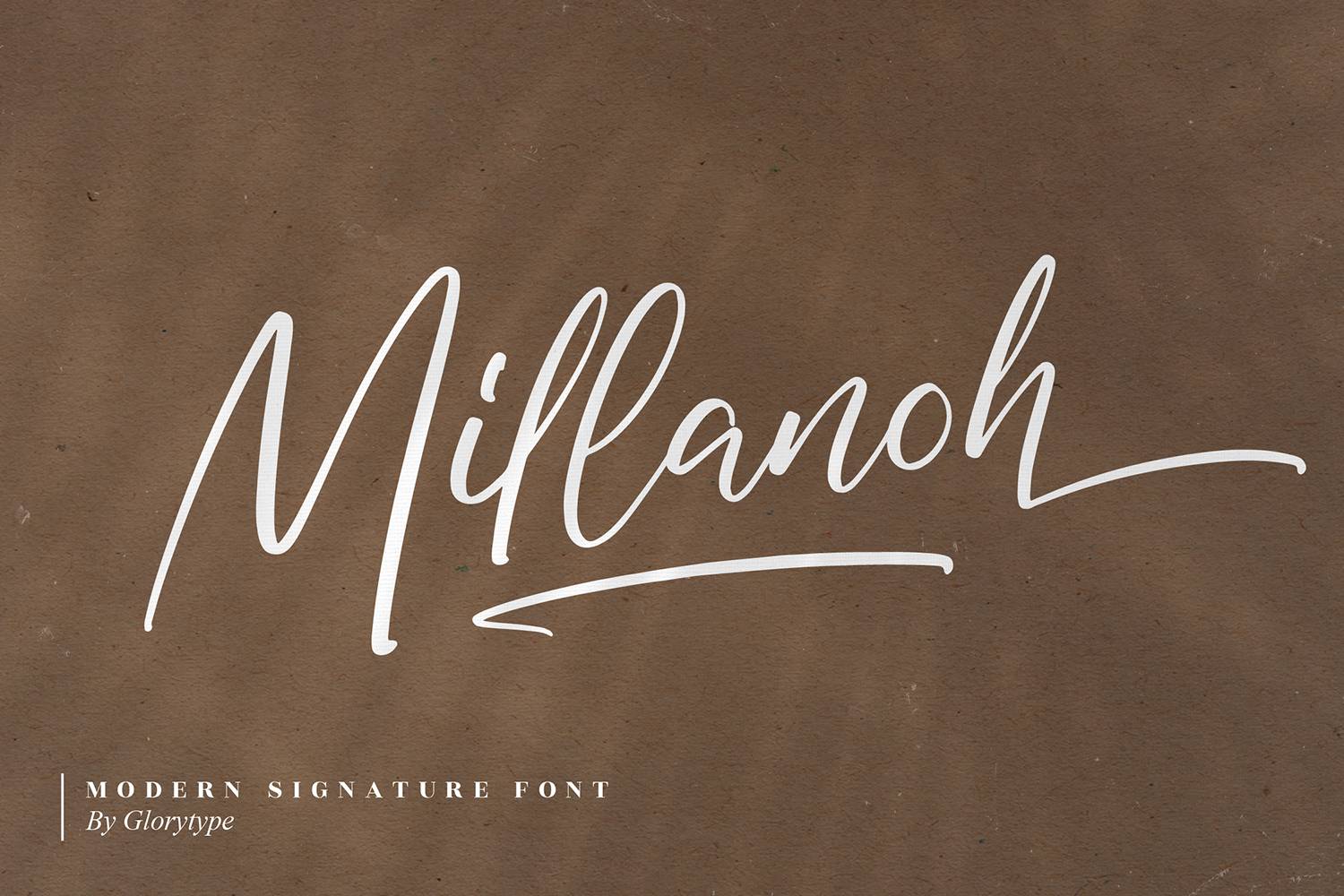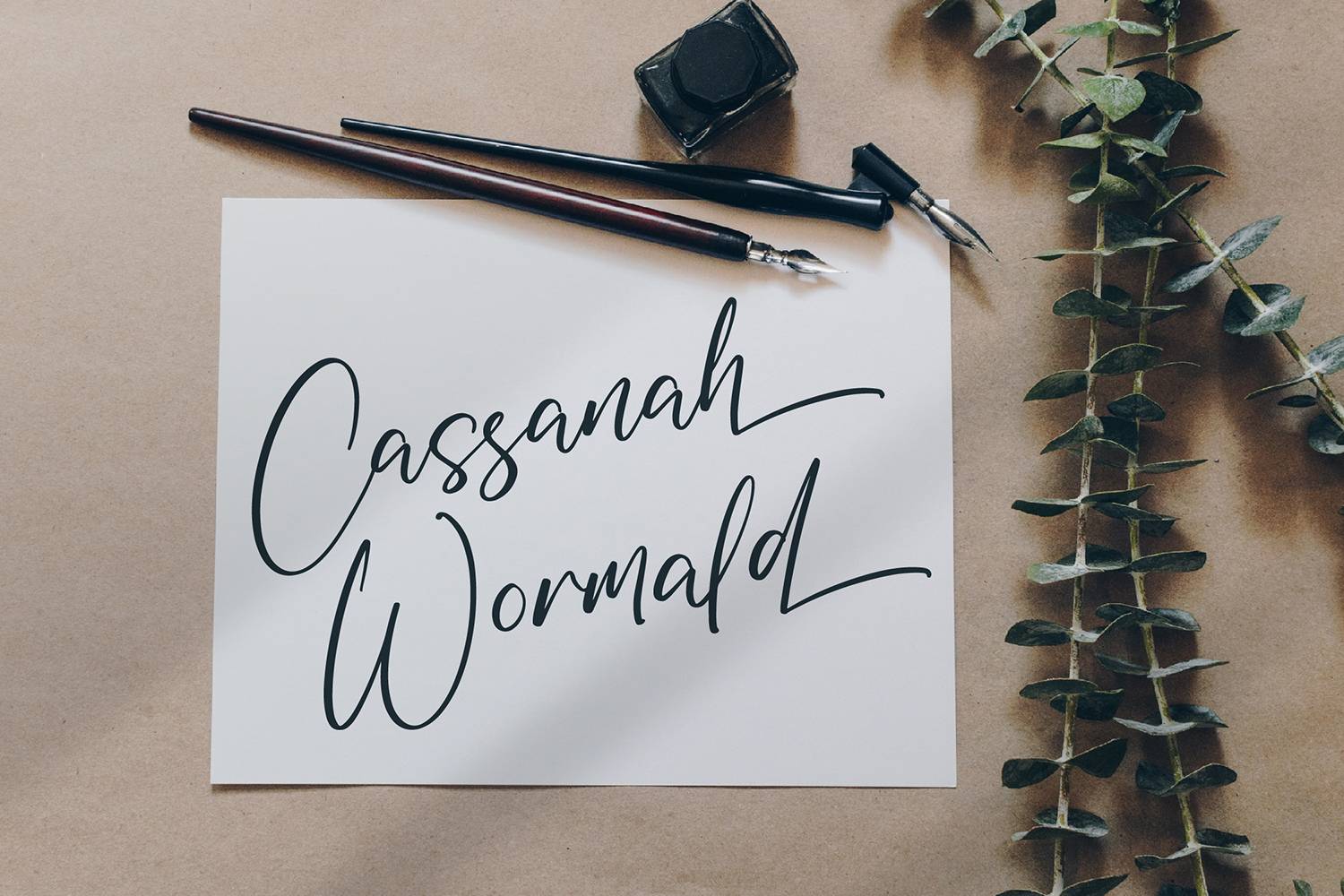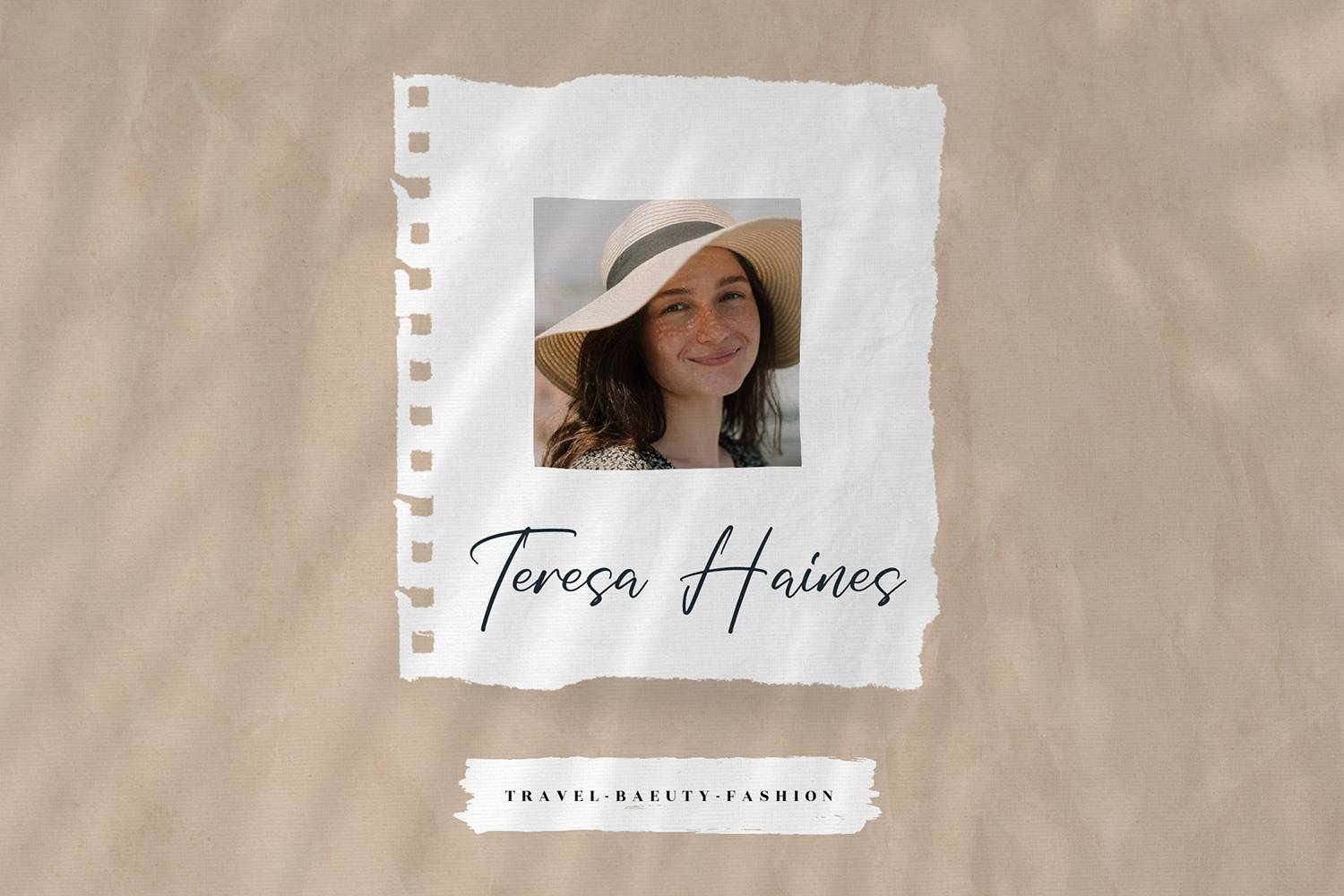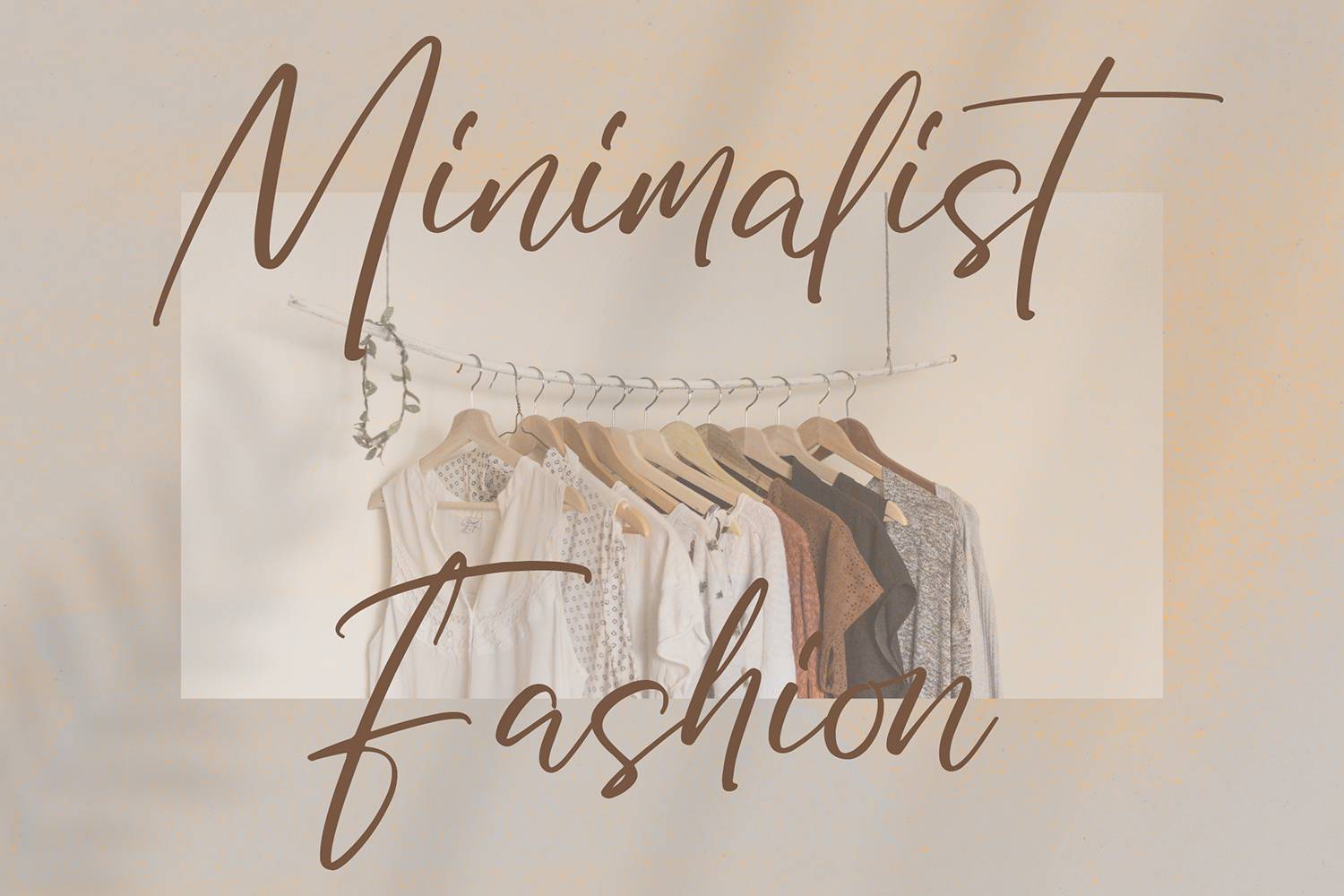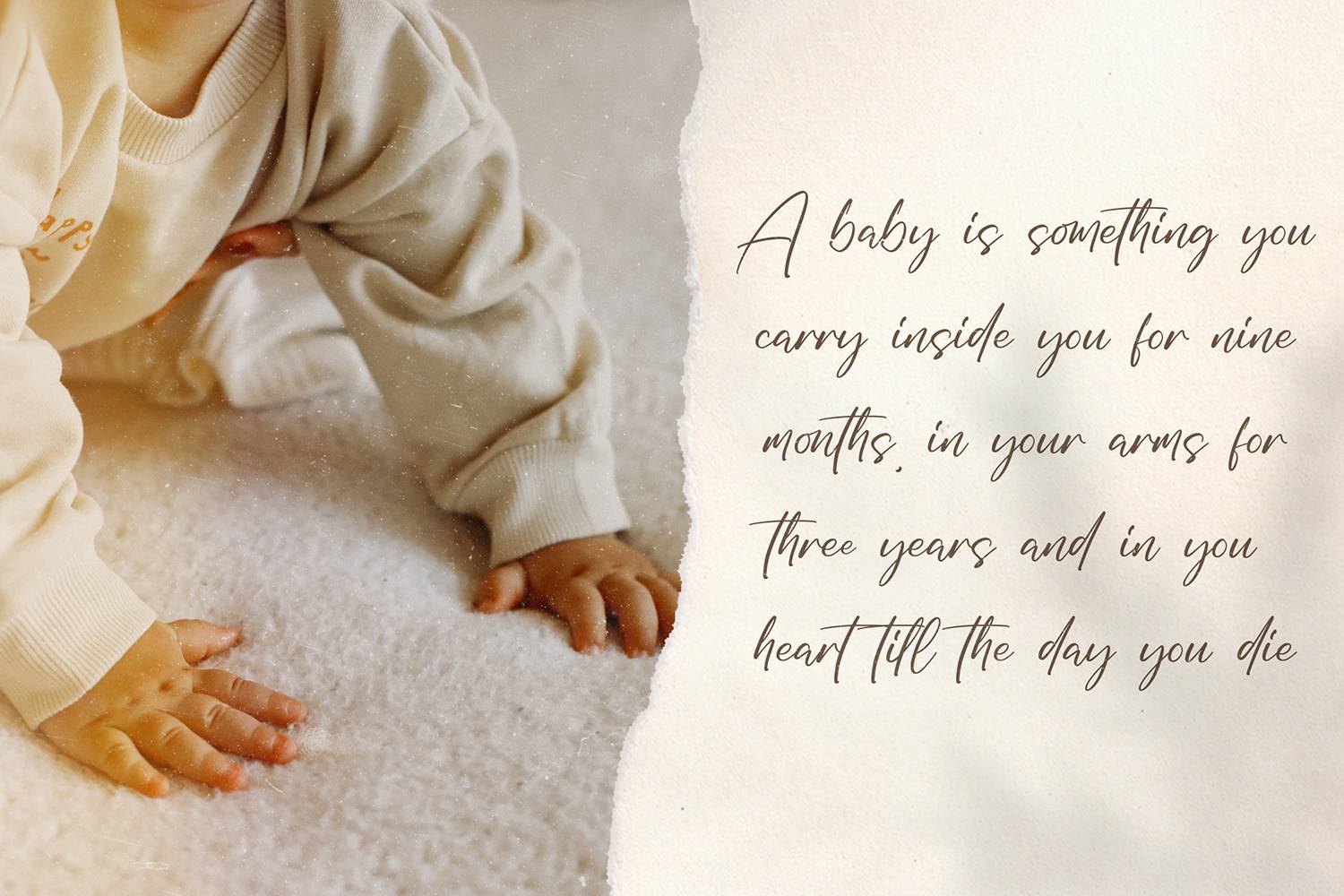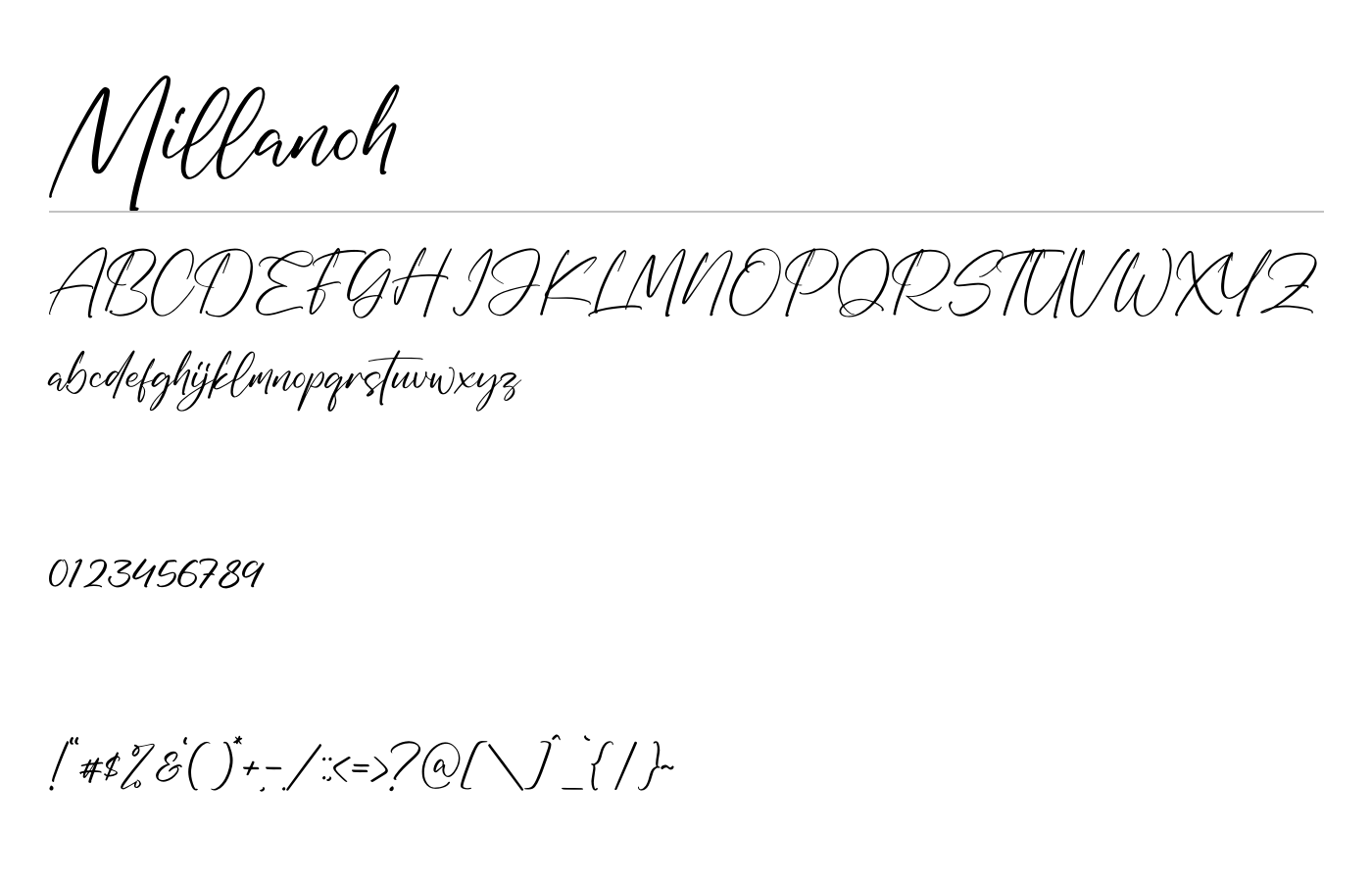
Millanoh is an elegant, modern script font with a delicate, handwritten feel. Its slender, flowing letterforms combine smooth curves and sharp strokes, giving it a refined and artistic personality that suits luxury branding, invitations, and stylish logos. The font’s casual yet sophisticated style makes it perfect for creative projects seeking a personal, polished touch.
Millanoh Font